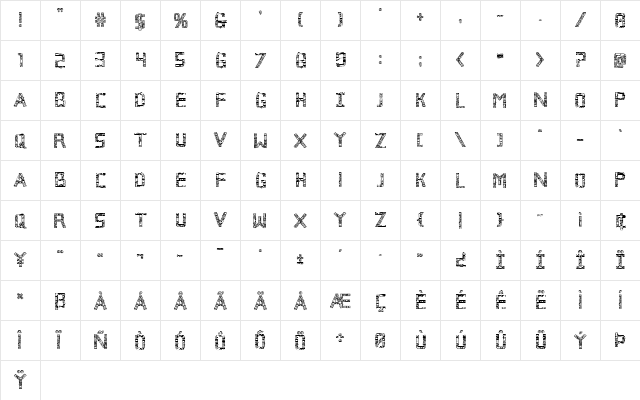
Broken Cyborg Outline Regular Font Preview
Broken Cyborg Outline Regular
Design Context for Broken Cyborg Outline Typeface
Broken Cyborg Outline is built around its visual character rather than neutral utility — its distinctive forms are designed to make an impression at display sizes.
Font Pairing: Pair with a clean neutral sans-serif for body copy to let Broken Cyborg Outline's character lead without overwhelming the composition.
Pro Tip: Use Broken Cyborg Outline exclusively at display sizes — it was designed to be seen, not read at length. Let a neutral companion handle body copy.